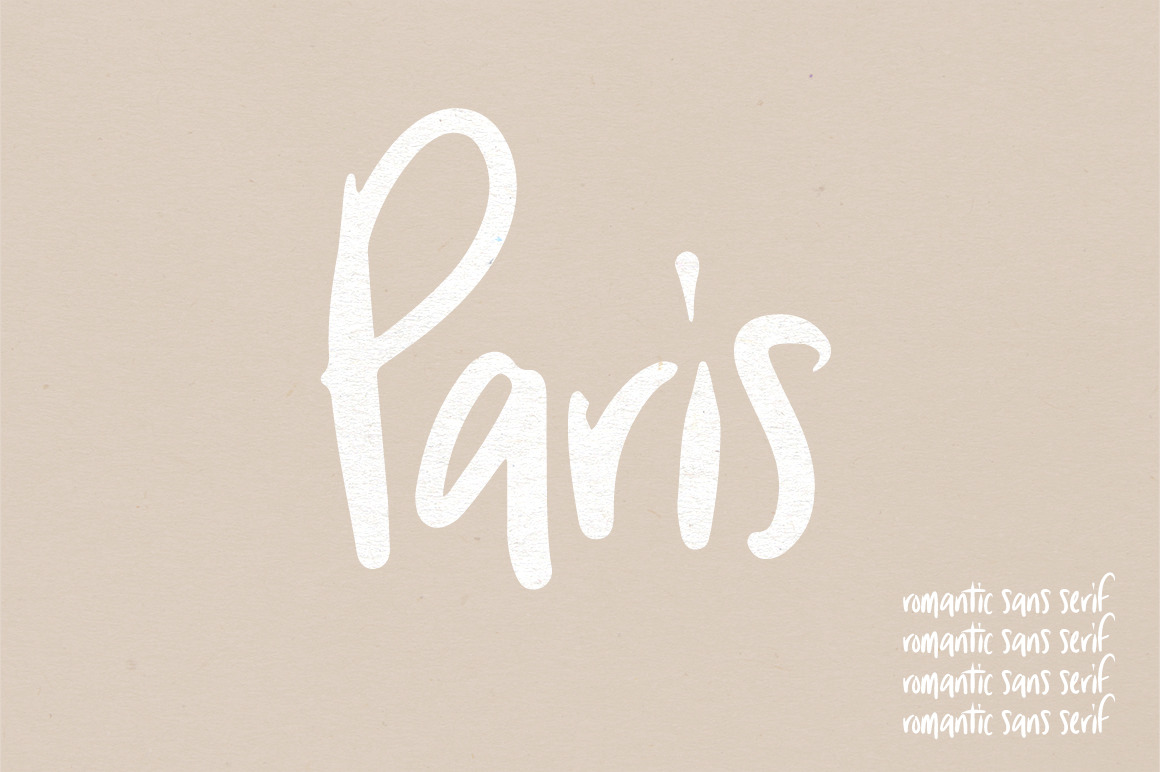
Paris | A Romantic Font
Paris is a romantic, timeless, and minimalistic handwritten sans serif display font that is gorgeous for logos, headers, magazine layouts, invitations, headers and so many other projects! Pair this beautiful written typeface with a classic sans serif like Denver or Los Angeles, available on my main page!